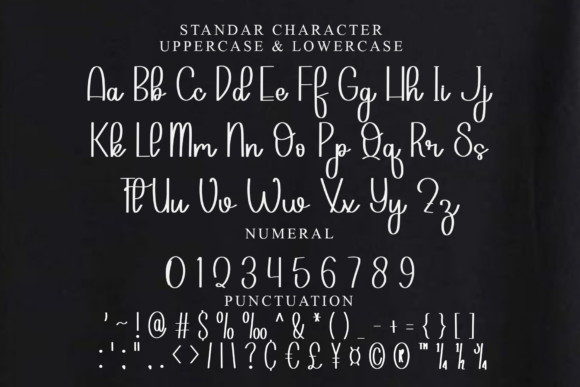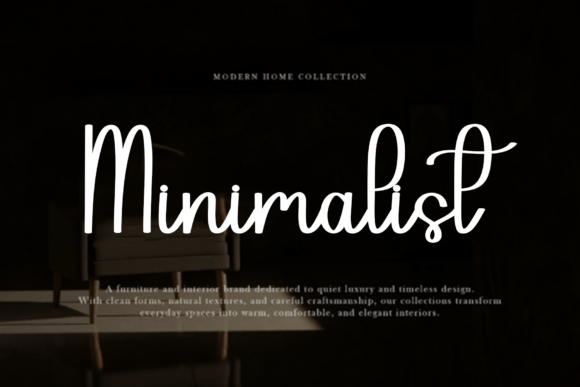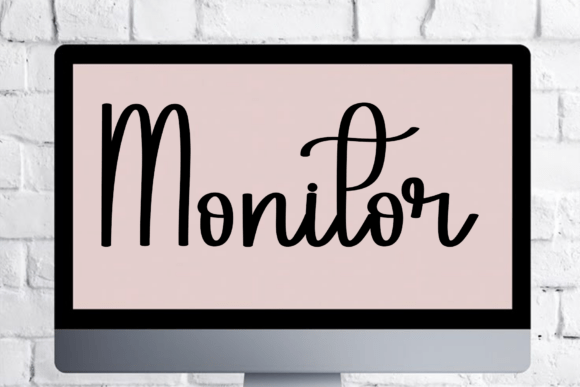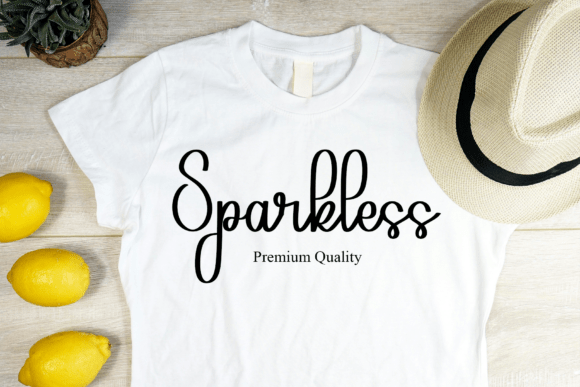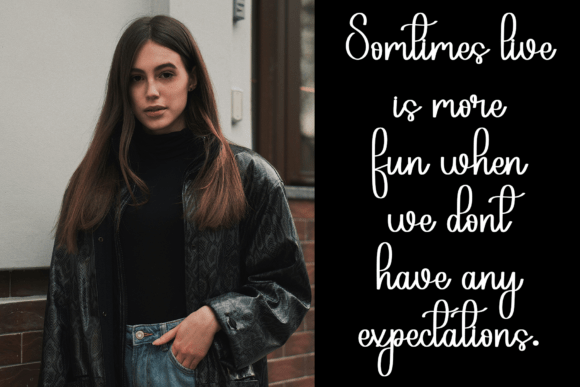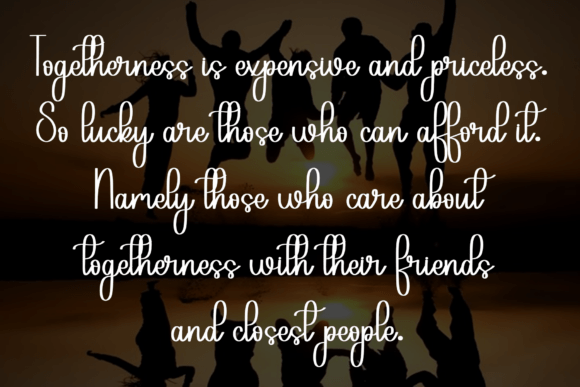
Introducing Bigboy Handsome Font: The Perfect Blend of Casual and Creative
Are you tired of using the same old fonts for your personal projects, invitations, and social media graphics? Look no further than Bigboy Handsome Font, a casual and creative font that exudes warmth and friendliness. Its round, playful strokes create a relaxed and approachable feel, making it perfect for designers and crafters who want to add a personal touch to their work.
The Charm of Bigboy Handsome Font
Bigboy Handsome Font is a hand-drawn font that boasts a charming, laid-back aesthetic. Its unique and fun design makes it an excellent choice for a wide range of projects, from DIY crafts to social media graphics. The font’s playful strokes and rounded edges create a friendly and approachable feel, making it perfect for designers who want to add a personal touch to their work.
Key Features of Bigboy Handsome Font
- Casual and Creative: Bigboy Handsome Font is a casual and creative font that is perfect for personal projects, invitations, and social media graphics.
- Warm and Friendly: The font’s round, playful strokes create a relaxed and approachable feel, making it perfect for designers who want to add a warm and friendly touch to their work.
- Hand-Drawn Aesthetic: The font’s charming, hand-drawn aesthetic adds a fun and unique touch to any design.
Use Cases for Bigboy Handsome Font
Bigboy Handsome Font is a versatile font that can be used for a wide range of projects, including:
- Personal Projects: Use Bigboy Handsome Font to add a personal touch to your personal projects, such as photo albums, scrapbooking, and DIY crafts.
- Invitations: The font’s casual and creative design makes it perfect for invitations, including birthday parties, baby showers, and weddings.
- Social Media Graphics: Use Bigboy Handsome Font to create eye-catching social media graphics, including Facebook posts, Instagram stories, and Twitter headers.
- Crafting Projects: The font’s hand-drawn aesthetic makes it perfect for crafting projects, including handmade cards, gift tags, and journaling.
Why Choose Bigboy Handsome Font?
There are many reasons why Bigboy Handsome Font stands out from other fonts. Here are just a few:
- Unique Design: Bigboy Handsome Font boasts a unique and fun design that will set your work apart from others.
- Easy to Read: The font’s round, playful strokes make it easy to read, even at small sizes.
- Versatile: Bigboy Handsome Font can be used for a wide range of projects, from personal projects to commercial designs.
In conclusion, Bigboy Handsome Font is a casual and creative font that is perfect for designers and crafters who want to add a personal touch to their work. Its charming, hand-drawn aesthetic and round, playful strokes create a relaxed and approachable feel, making it perfect for personal projects, invitations, and social media graphics. With its PUA encoded glyphs and versatile design, Bigboy Handsome Font is a great choice for anyone looking to add a unique and fun touch to their designs.